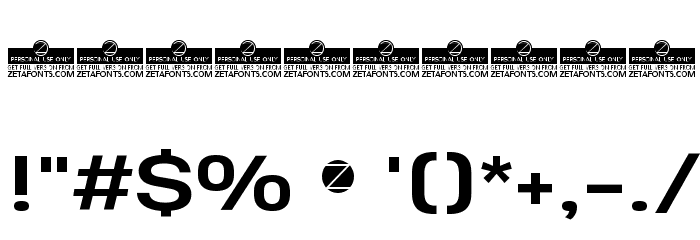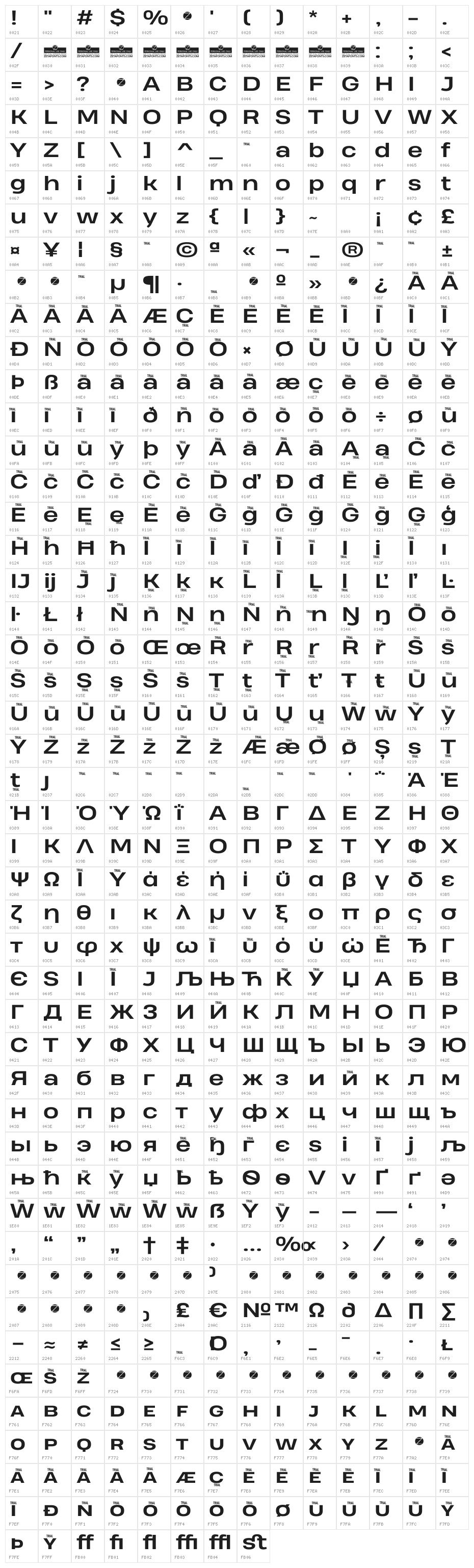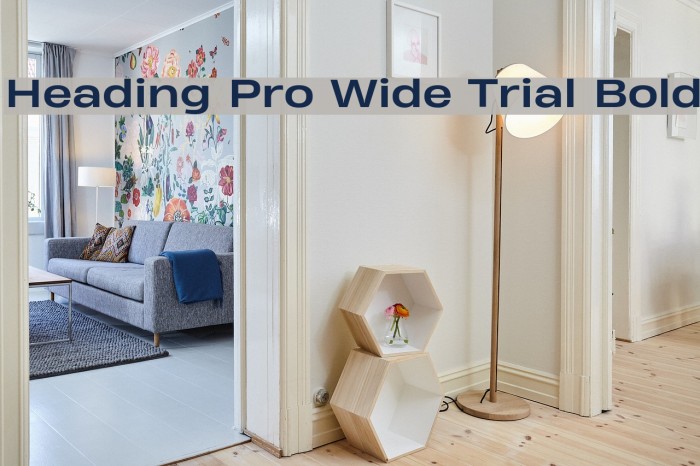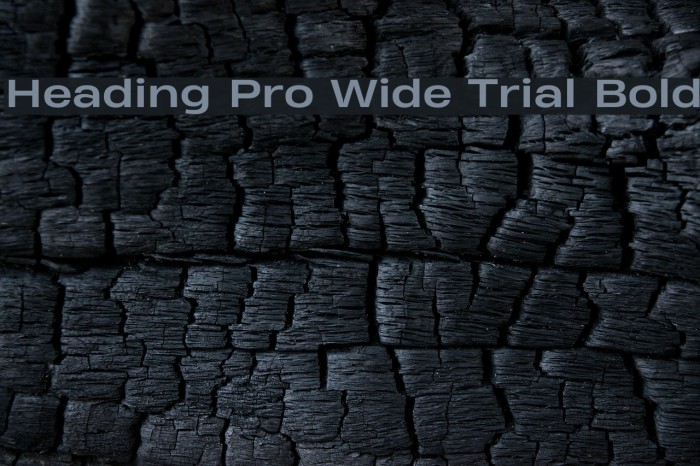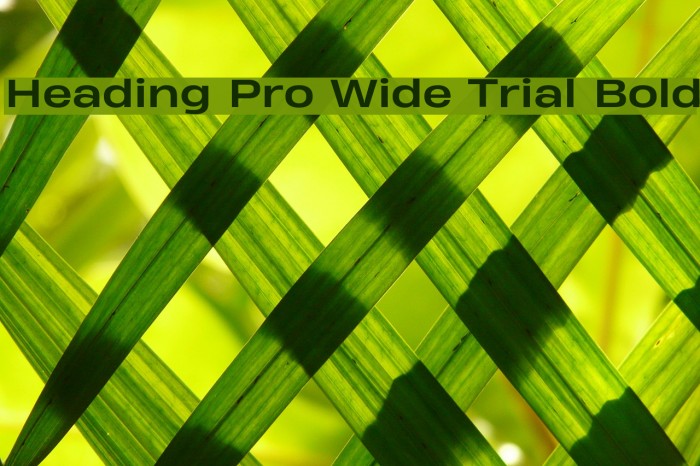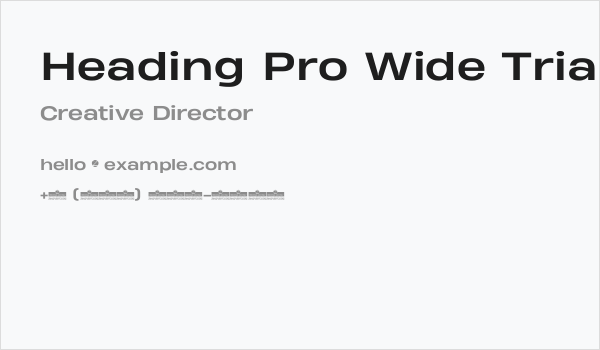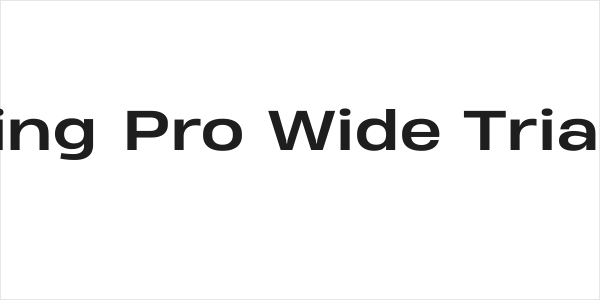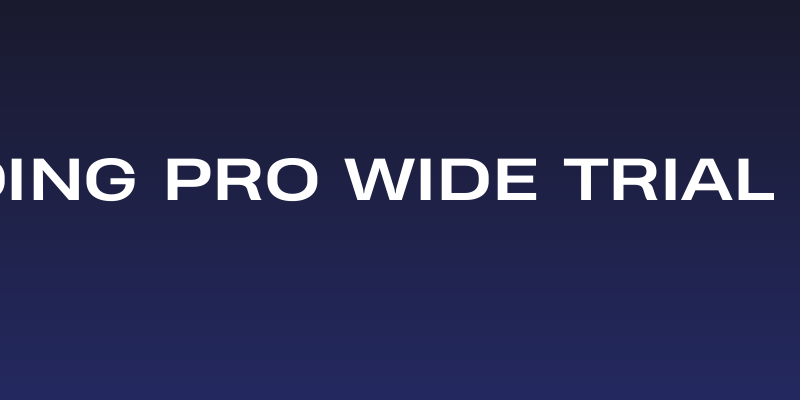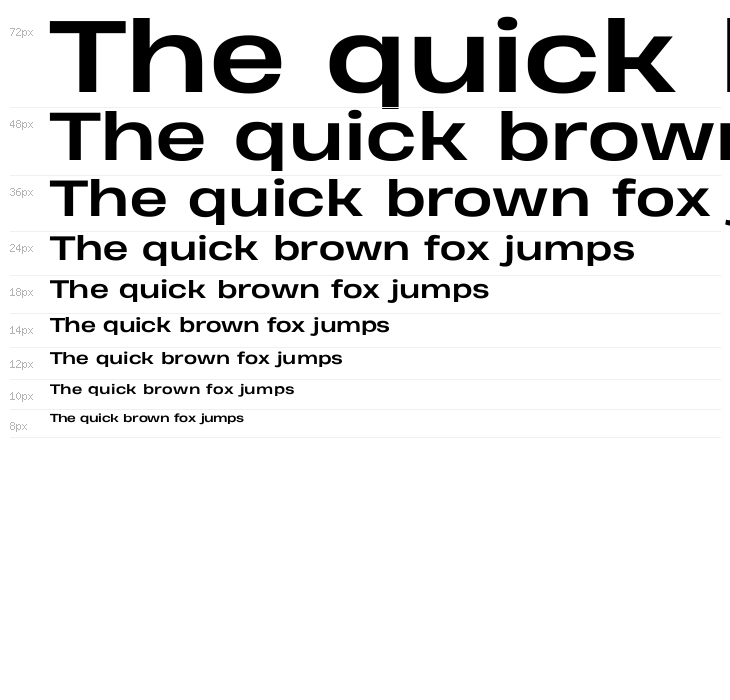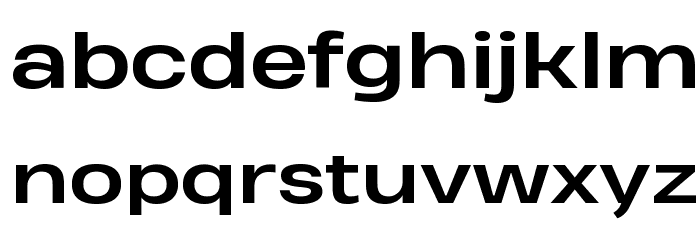
Heading Pro Wide Trial Bold Font
Heading Pro Wide Trial Bold Description
This font features a bold and modern sans-serif style with a wide stance, making it highly legible and impactful. The characters are evenly spaced, providing a clean and organized appearance. The uppercase and lowercase letters maintain a consistent weight, contributing to a balanced and harmonious look. The numerals and special characters are designed to match the overall style, ensuring uniformity across different text elements. This font's boldness and clarity make it suitable for various design applications where readability and a strong visual presence are essential.
| Proposed Projects | Ideal for headlines, branding, advertising, and any project requiring a strong, modern typeface. |